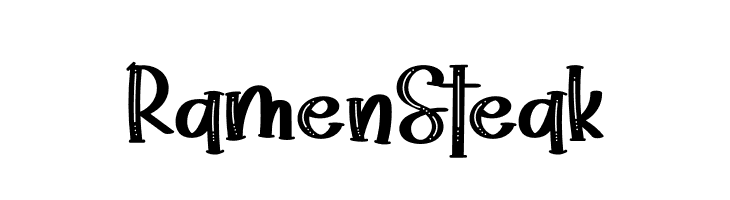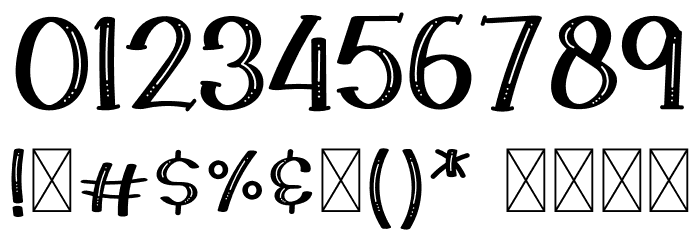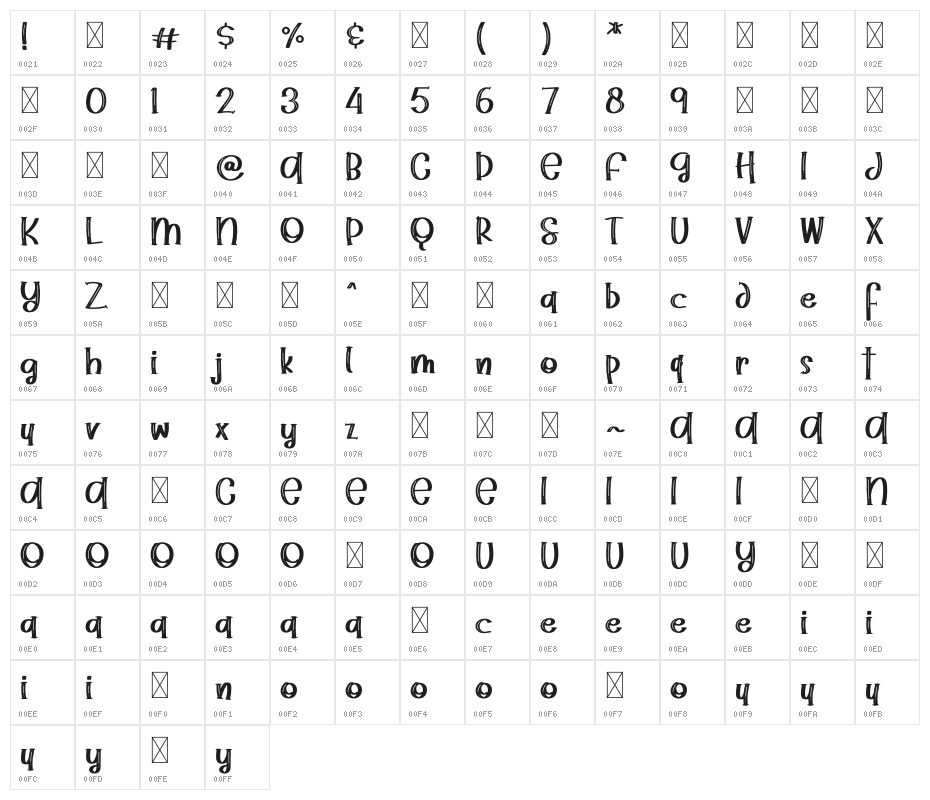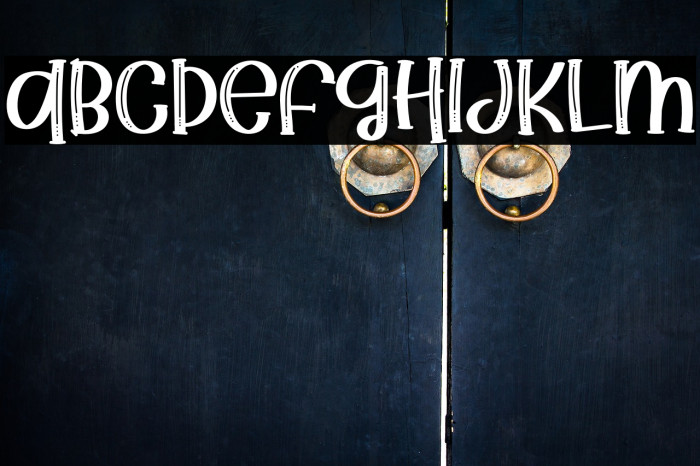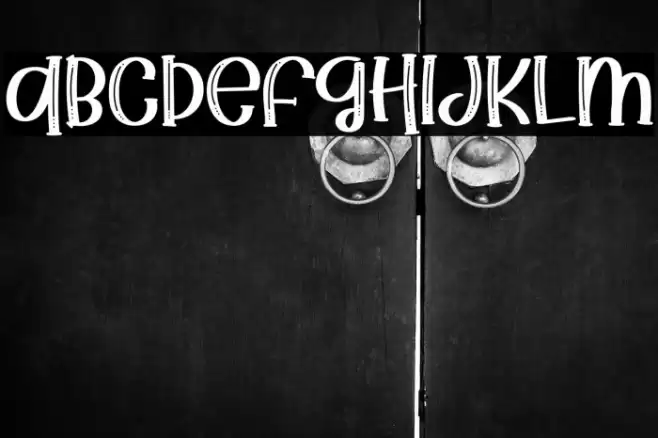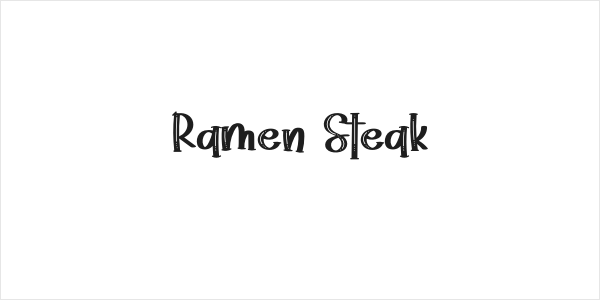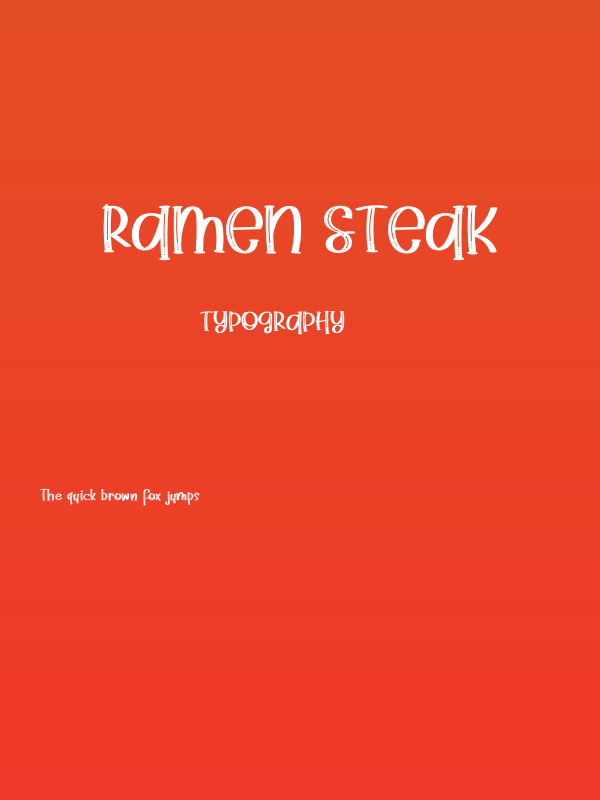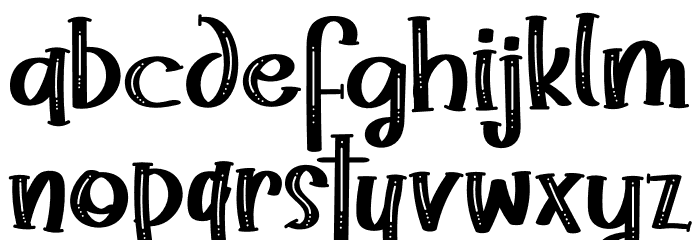
Ramen Steak Font
Ramen Steak Description
This playful and whimsical font features a hand-drawn style with a unique, decorative flair. Each character is adorned with subtle embellishments, giving it a lively and energetic appearance. The letters are bold and slightly irregular, adding to the charm and personality of the typeface. The uppercase and lowercase letters maintain a consistent style, while the numbers and special characters complement the overall design. This font is perfect for projects that require a fun and engaging aesthetic, such as children's books, playful branding, or creative invitations.
| Overall Style | Whimsical, Playful, Decorative |
| Proposed Projects | Ideal for children's books, playful branding, creative invitations, and other fun, engaging designs. |